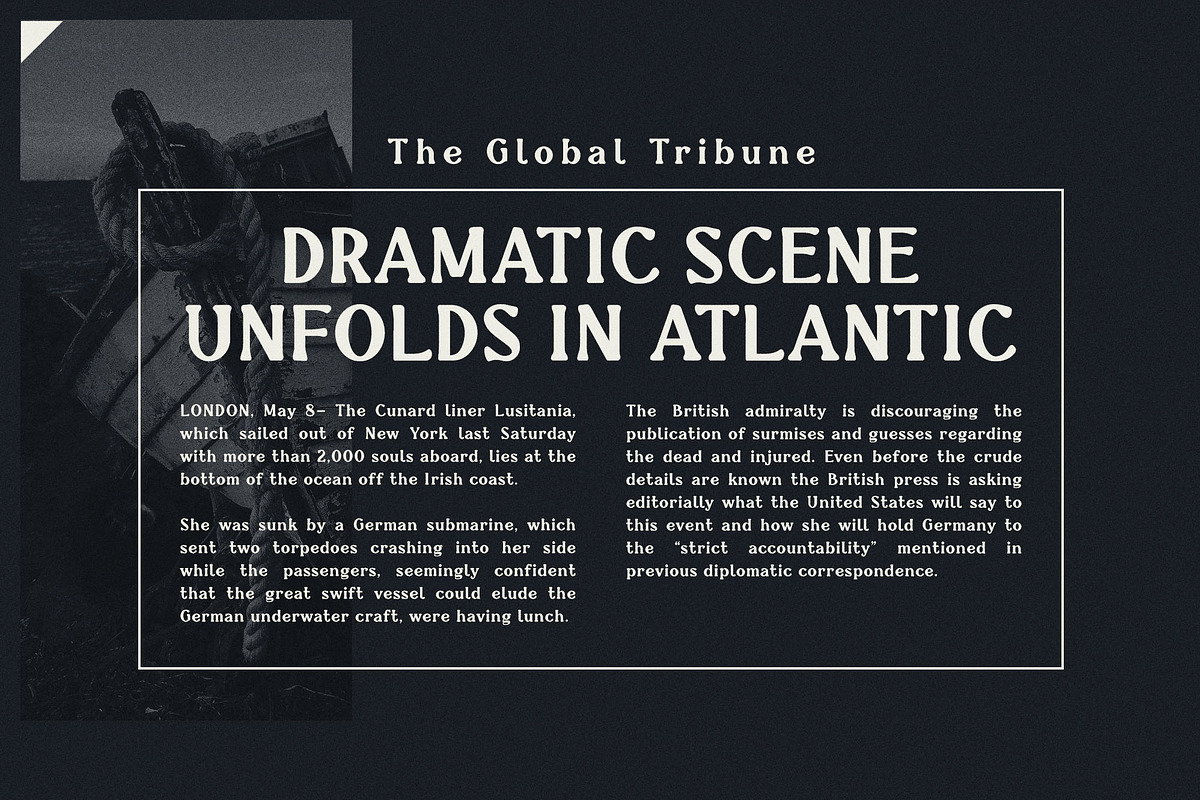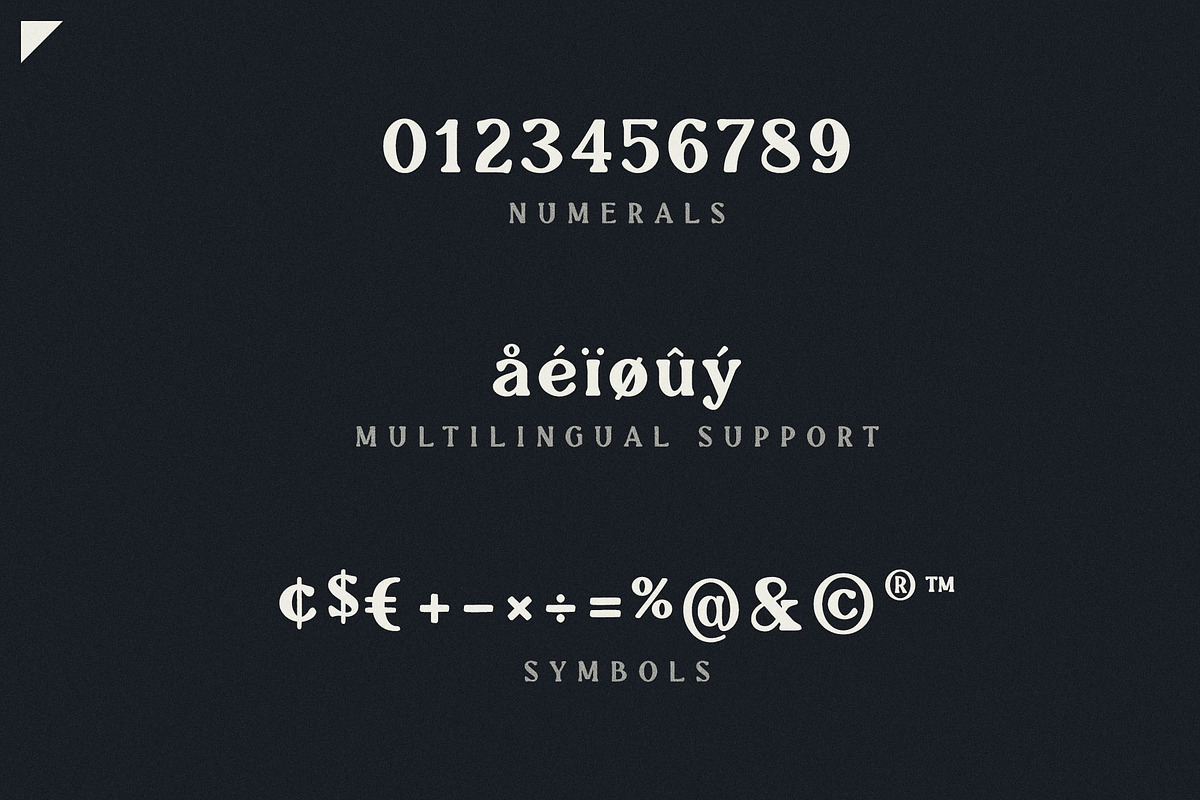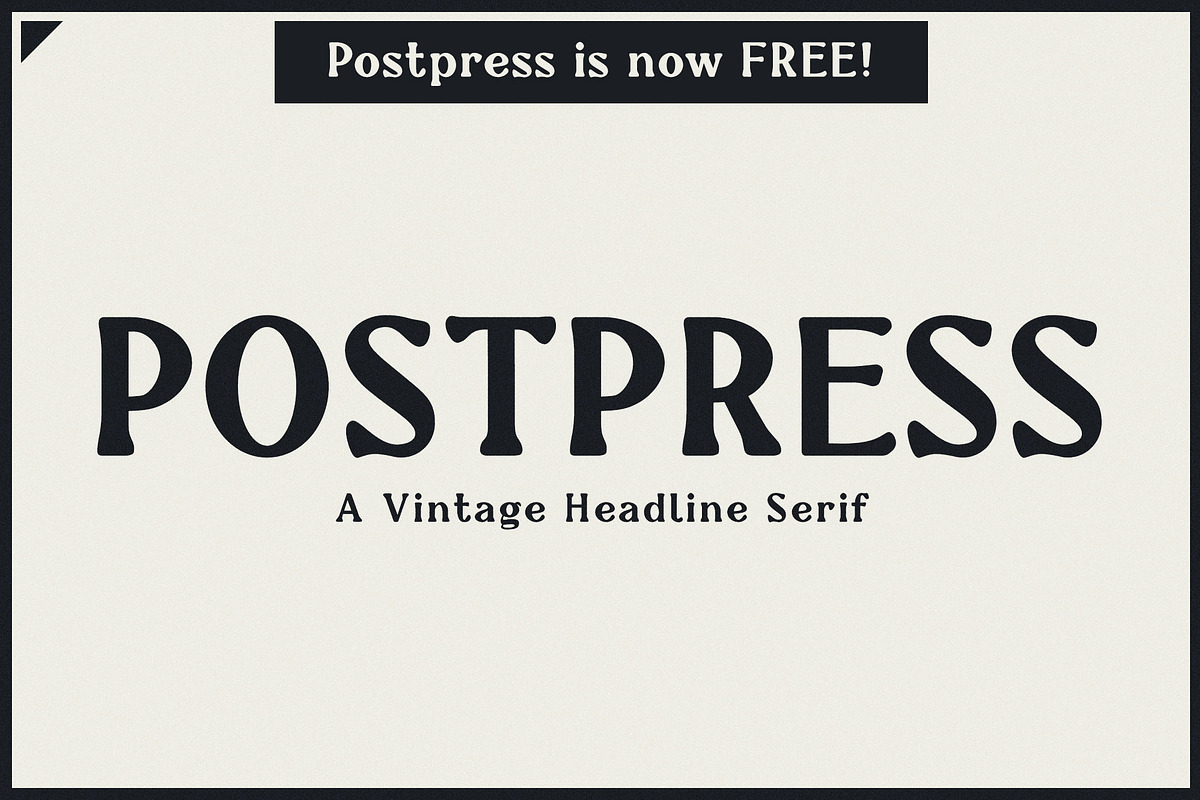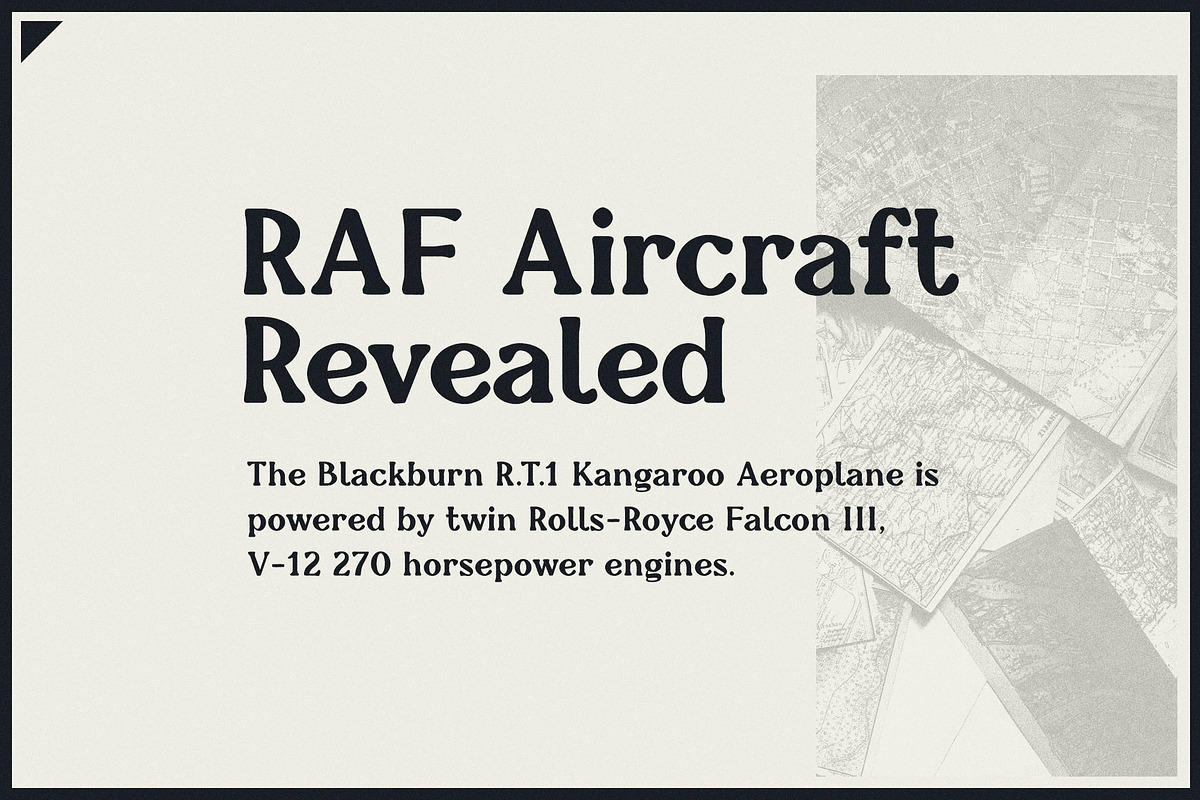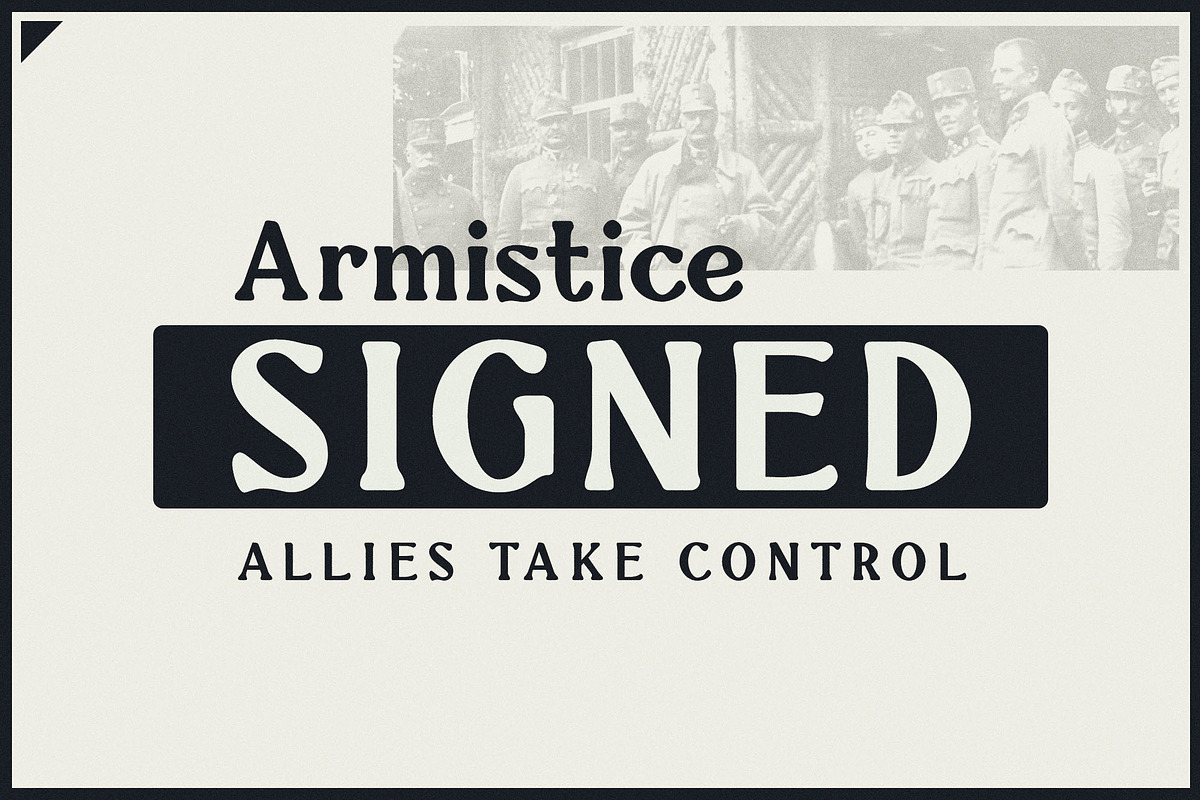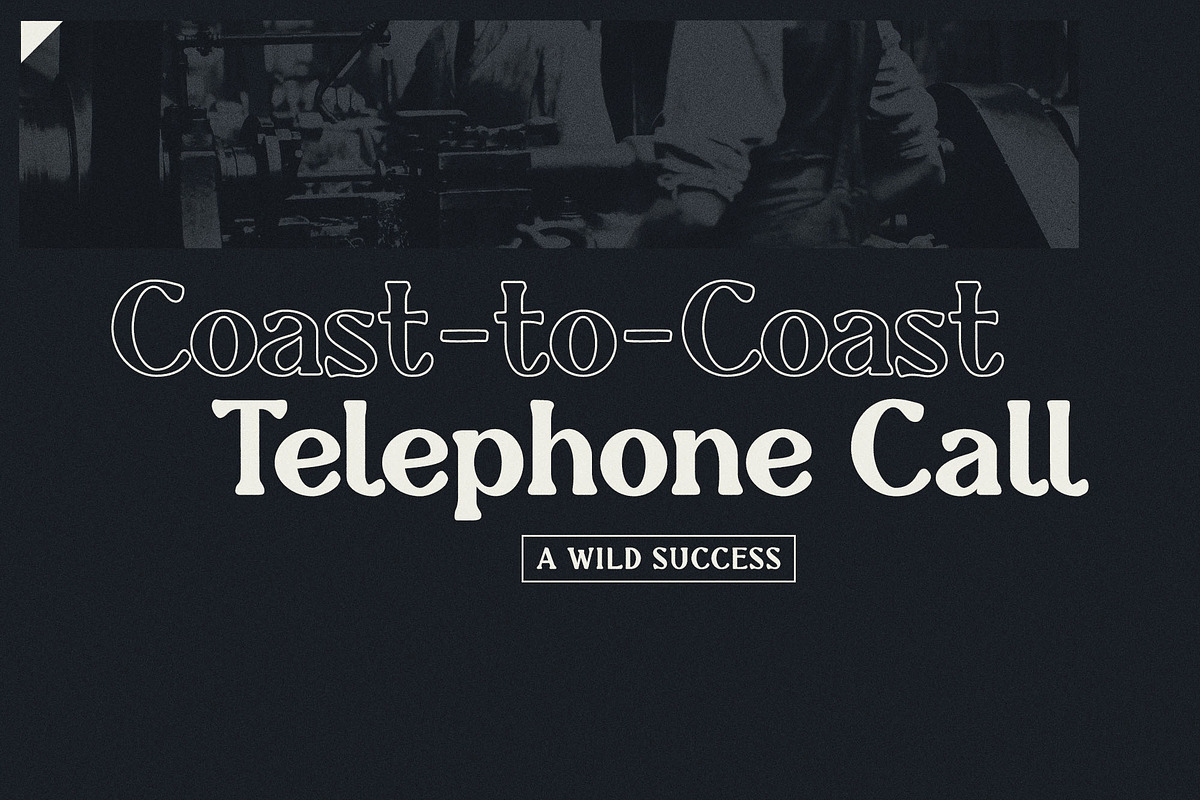
Postpress - FREE Industrial Serif
Introducing Postpress, a vintage serif inspired by newspapers of the early 1900's. With rounded edges, soft wedge serifs, and narrow lettering, Postpress can make even the most modern designs feel instantly rooted in history.
Designed for creating large titles for posters and publications, Postpress also reads well at small sizes, making it a great option for blogs, eBooks, UI designs, and even apps.
Postpress is is website-ready and an 'outline' variation is also available.